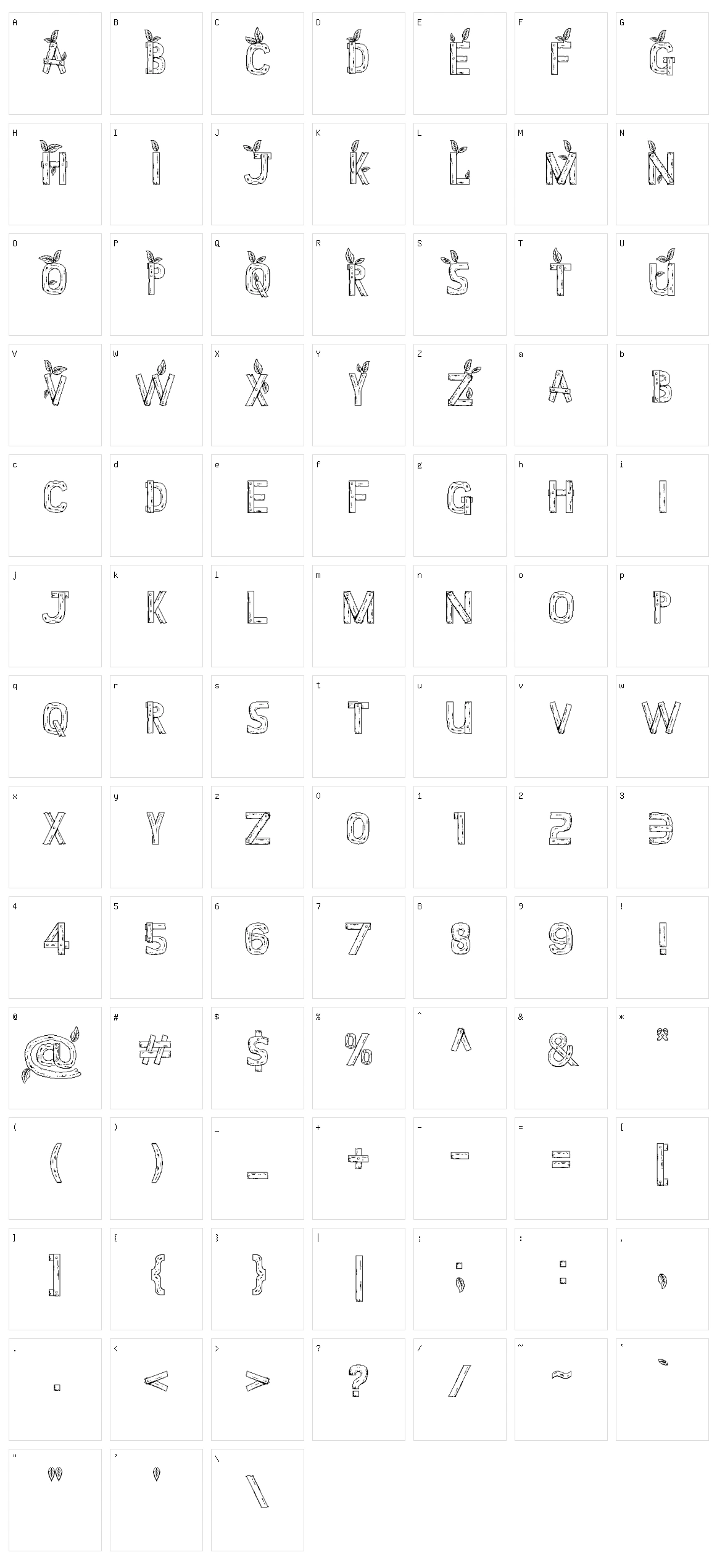
Stardew Valley
Category: Decorative
This font is based on the title screen of the video game Stardew Valley,
a wholesome farming/crafting type game that has a dedicated fan base.
The letters S-T-A-R-D-E-W-V-L-Y are based on the design of the Title,
but all of the other capitals, including all of the lowercase letters,
are of my design, in the style of the original letters.
Symbols from the game are the stardrop which is an asterisk (*),
and the coin/gold icon is the dotaccent (Ù) for use above foreign letters.
I have included the Leafy ALL Capitals font,
the lowercase being the capitals from the "Stardew Valley Regular" font.
The leaves of the S and W match the title screens letters, but V and Y
do not match. This is because if you decide to mix and match capitals and
lowercase (highly recommended) to create an interesting design,
the side hanging leaves of V and W would interfere with the next
letter before or after.
ConcernedApe is the creator and developer of the game Stardew Valley, and this font
is solely an expansion of the title screen font.